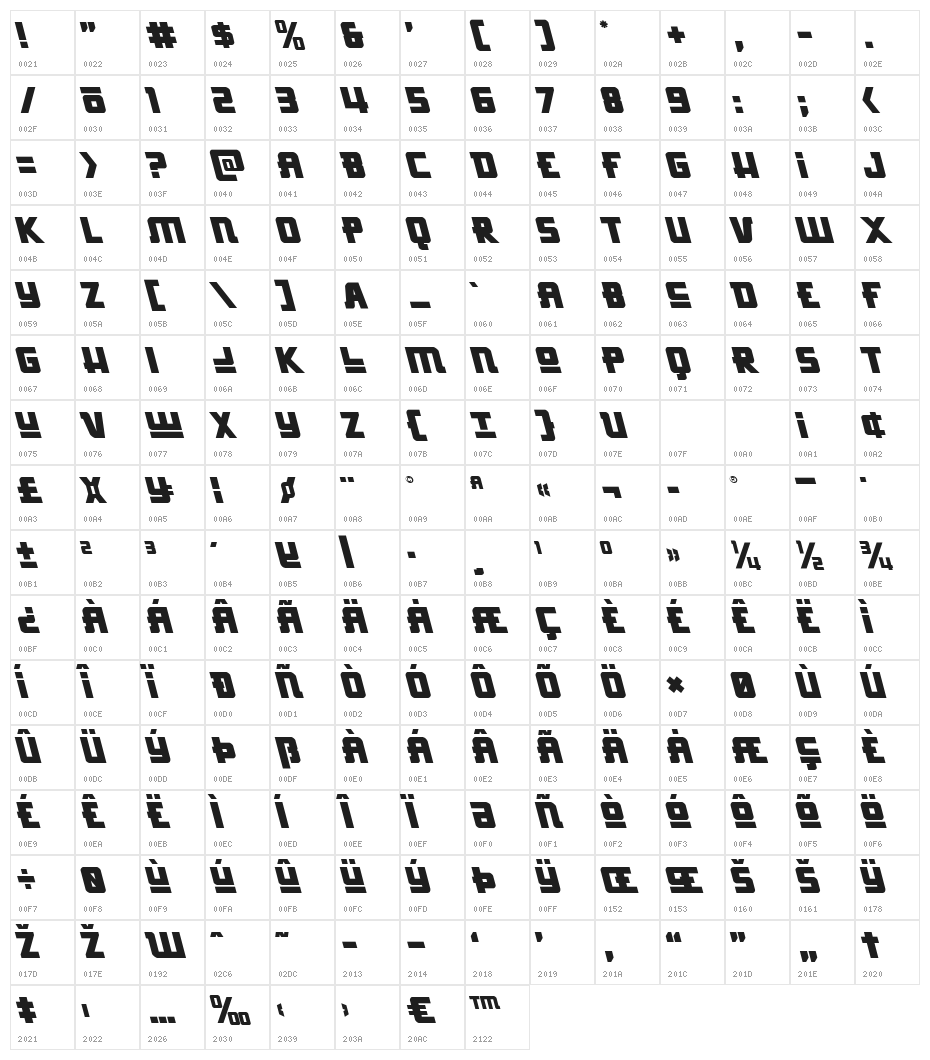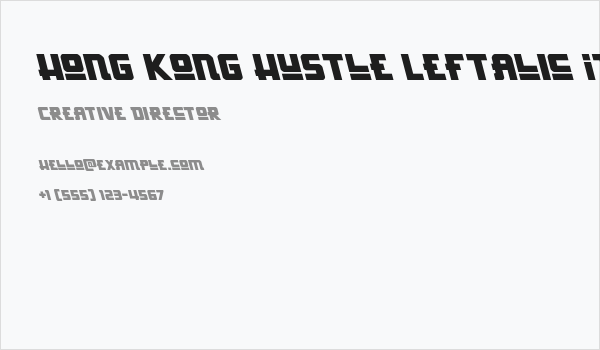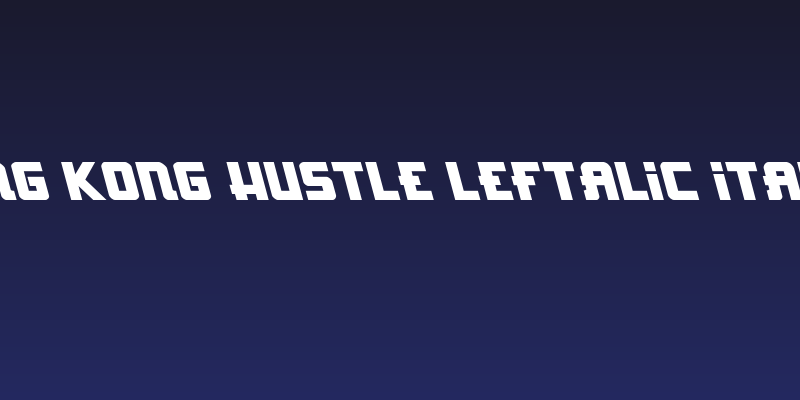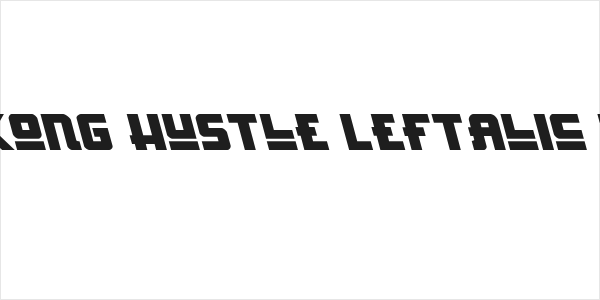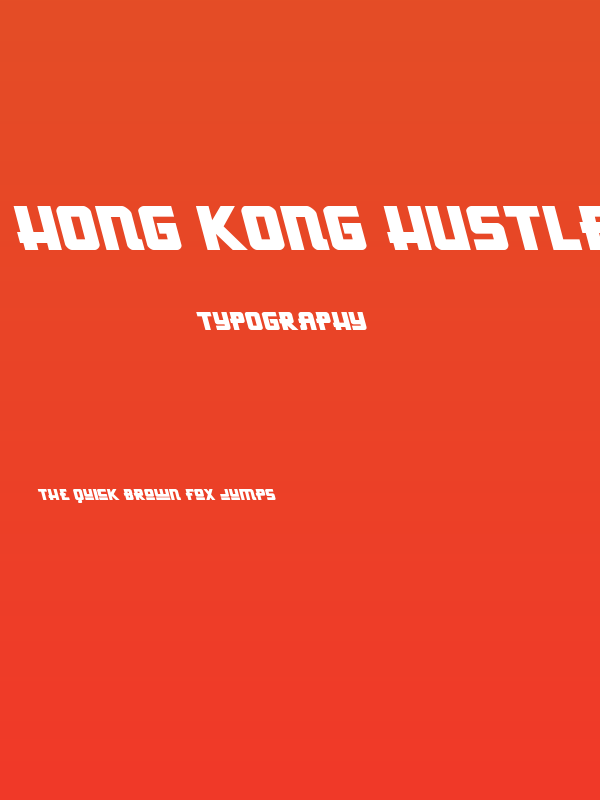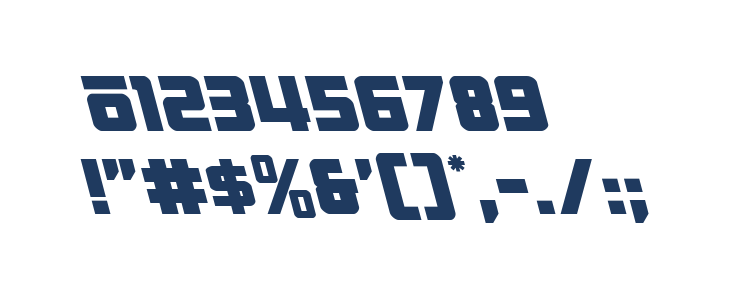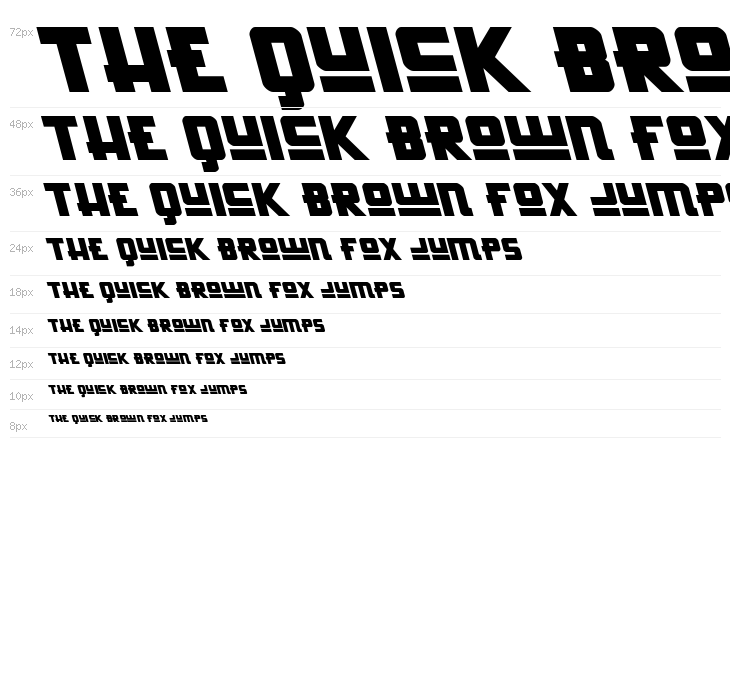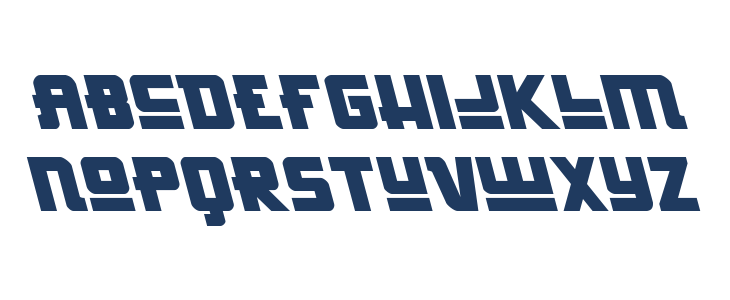
Hong Kong Hustle Leftalic Italic Font
Hong Kong Hustle Leftalic Italic Description
This font exhibits a bold, futuristic style with a strong geometric influence. The characters are blocky and angular, featuring sharp edges and a distinct slant that gives a sense of motion and energy. The uppercase and lowercase letters maintain a consistent width, creating a uniform appearance. The numbers and special characters follow the same design principles, ensuring a cohesive look across all glyphs. The font's bold weight and unique style make it stand out, ideal for projects that require a modern and dynamic aesthetic.
| Proposed Projects | Ideal for video game titles, sci-fi movie posters, tech branding, and modern advertising campaigns. |